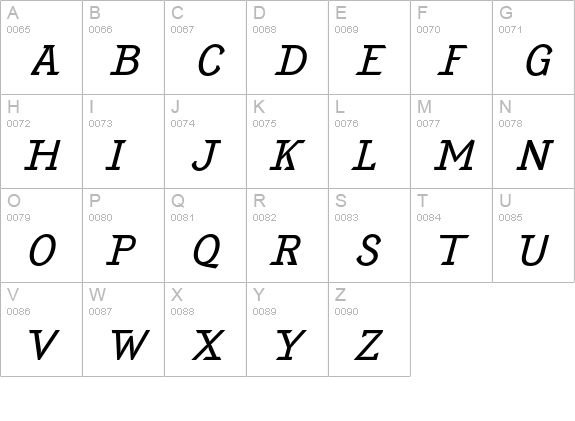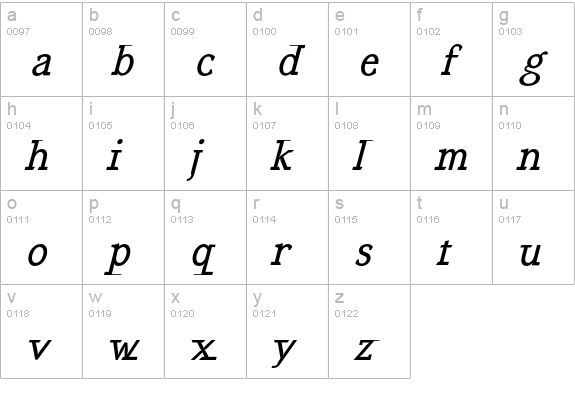
EquipoizeSerif-RegularItalic Font Details
EquipoizeSerif-RegularItalic is a stylish and elegant font that exudes sophistication and charm. With its slanted design and graceful curves, this italic version of EquipoizeSerif-Regular adds a touch of flair to any text or design project. Whether you're looking to enhance your branding, create eye-catching headlines, or add a touch of class to your invitations, this font has got you covered. The free download of EquipoizeSerif-RegularItalic font is available at FontsMarket.com, making it easily accessible for all your creative needs. Take advantage of this versatile and beautiful typeface to elevate your projects and make a lasting impression. Let EquipoizeSerif-RegularItalic bring a touch of elegance and finesse to your designs today.